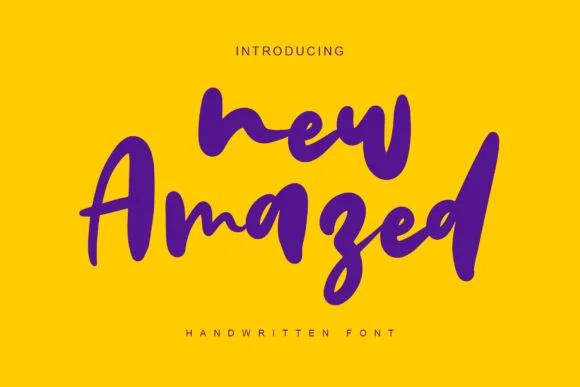
New Amazed Font
The New Amazed Font is perfect for modern branding, poster designs, digital graphics, product packaging, and attention-grabbing headlines. Its bold, clean lines and contemporary style make it ideal for projects that need a fresh, impactful look.
What makes the New Amazed Font Free Download so exciting is its striking balance of simplicity and personality. Each character is designed to be readable yet visually distinctive, giving your text a confident and energetic presence that draws attention.
The New Amazed Font family includes multiple styles such as Regular, Bold, Italic, and Outline. These variations provide flexibility for creative typography, allowing designers to craft dynamic layouts while maintaining a cohesive and modern aesthetic.